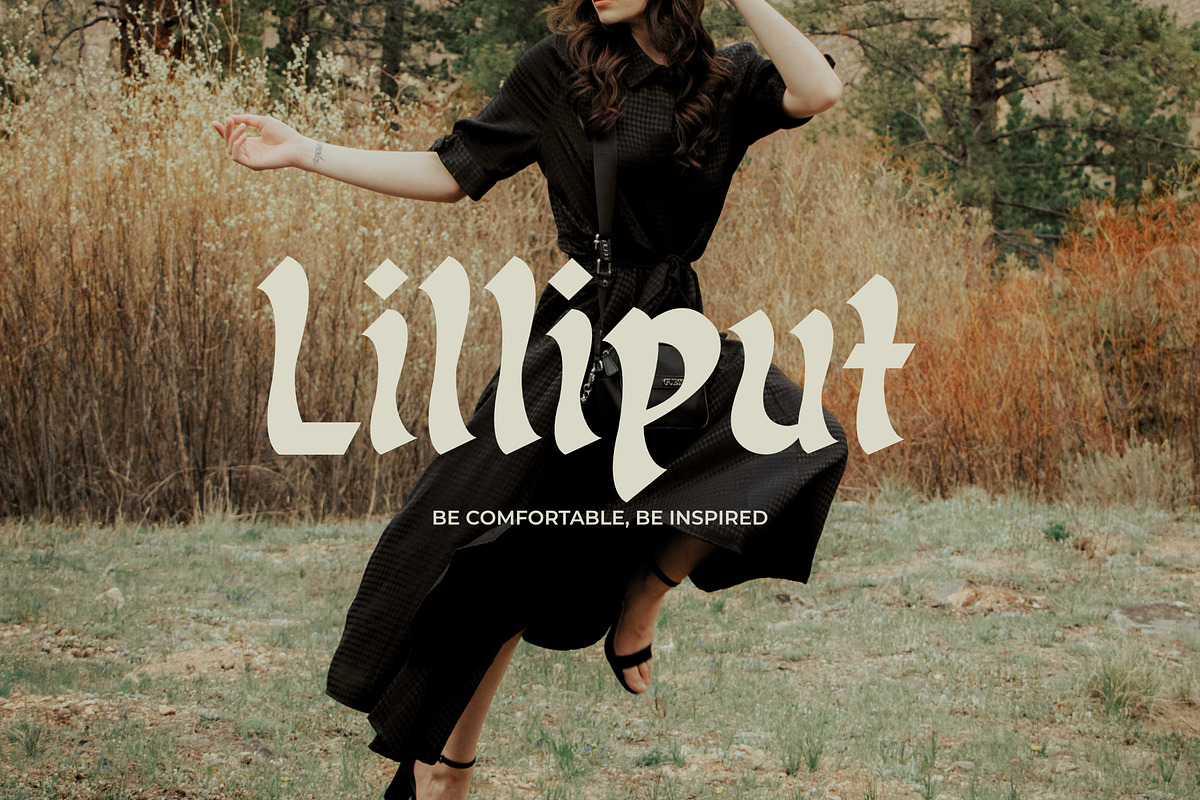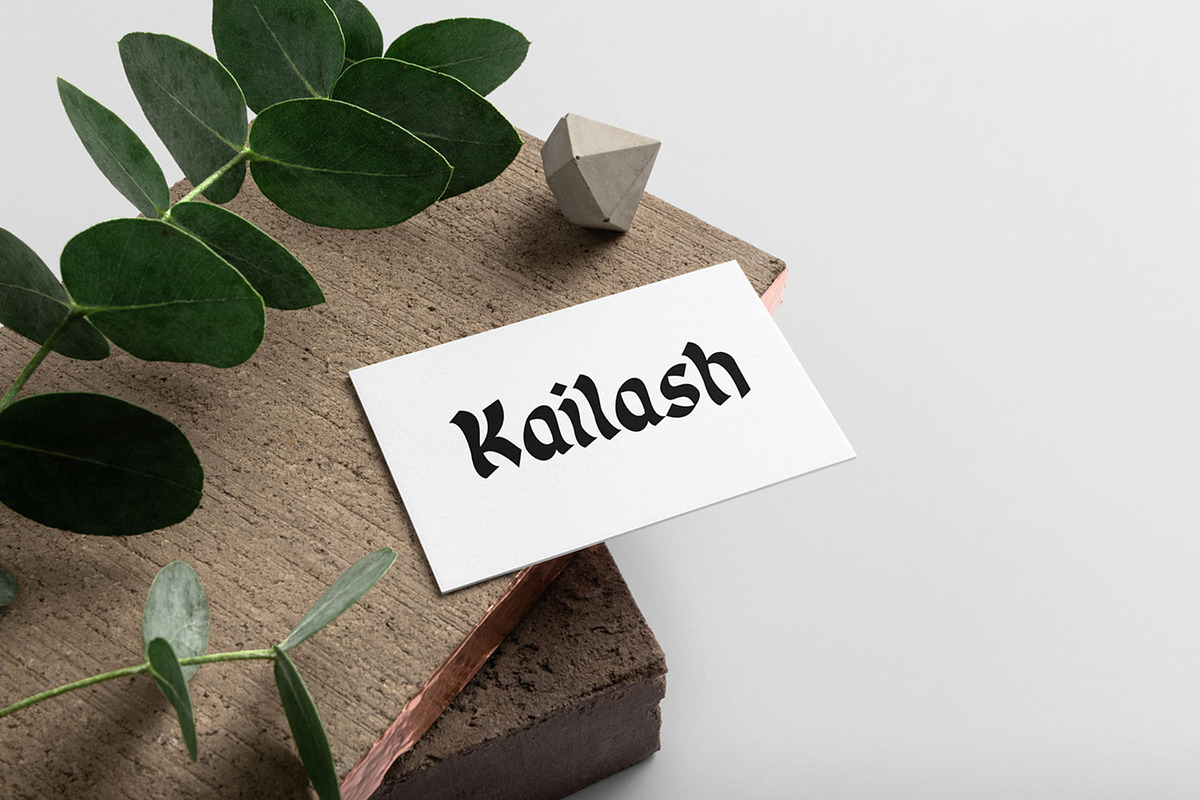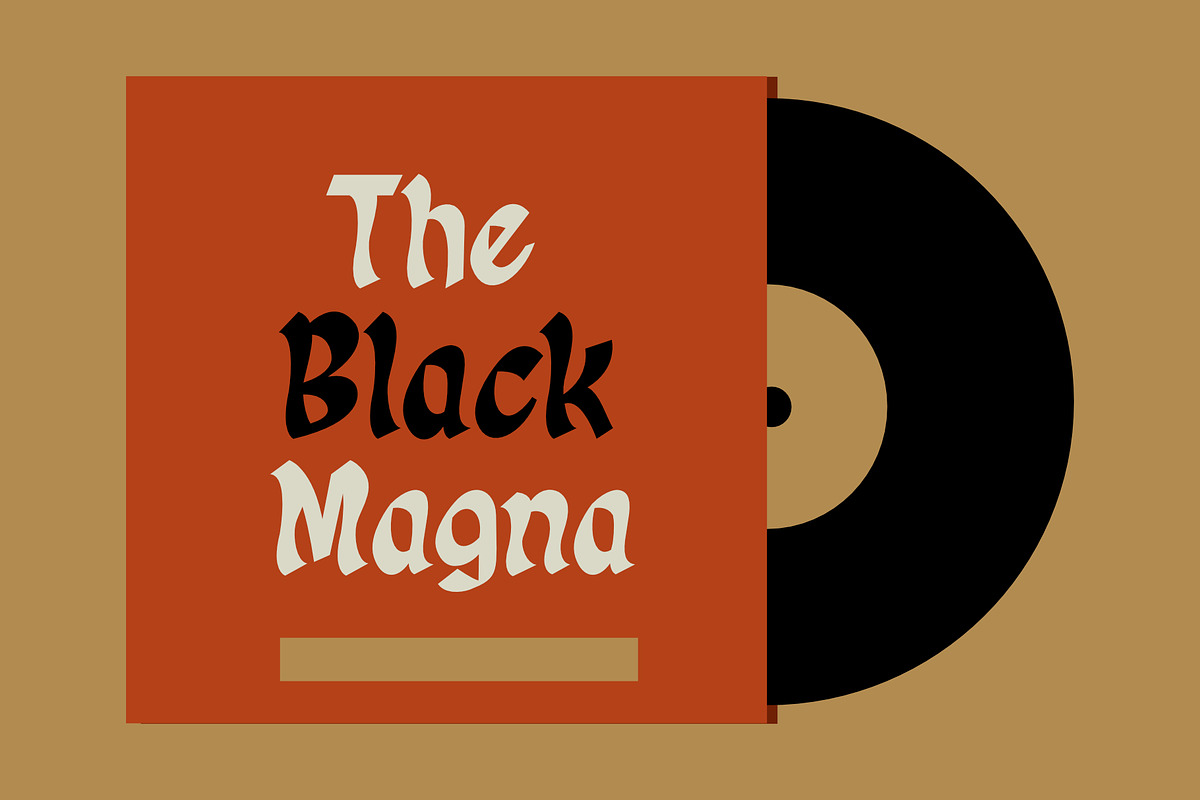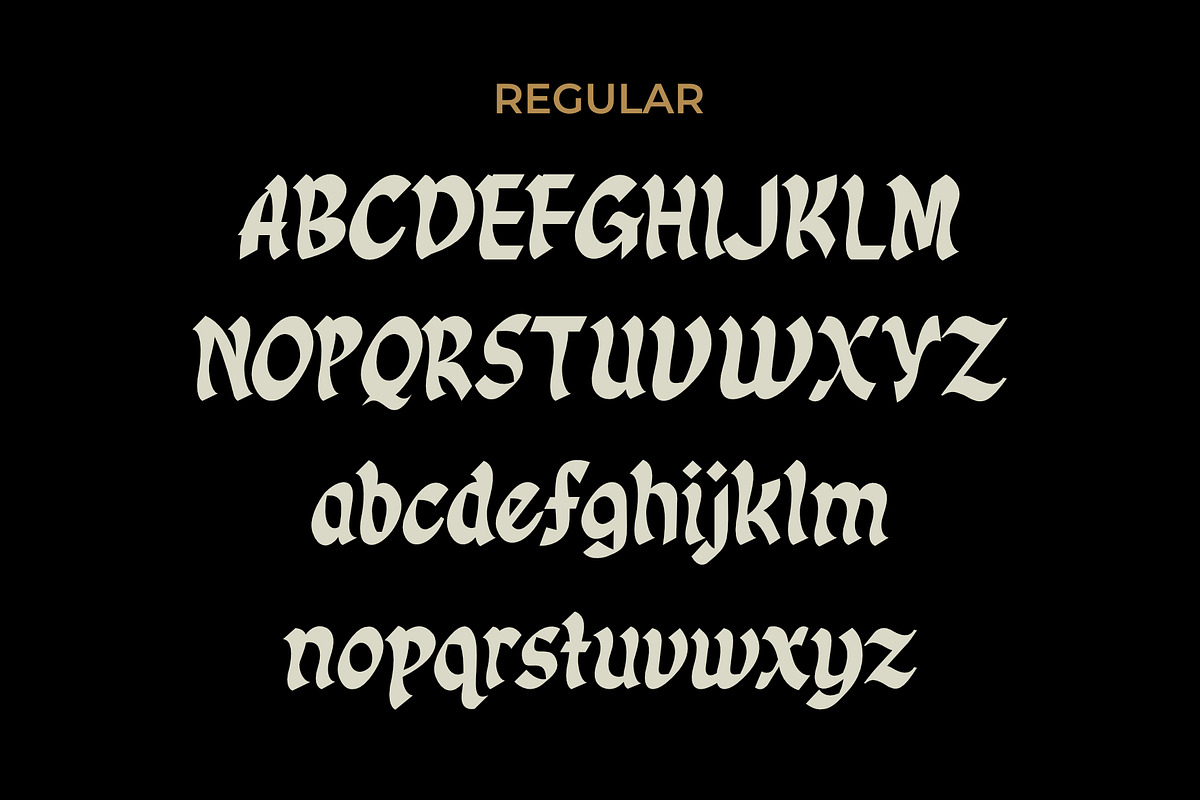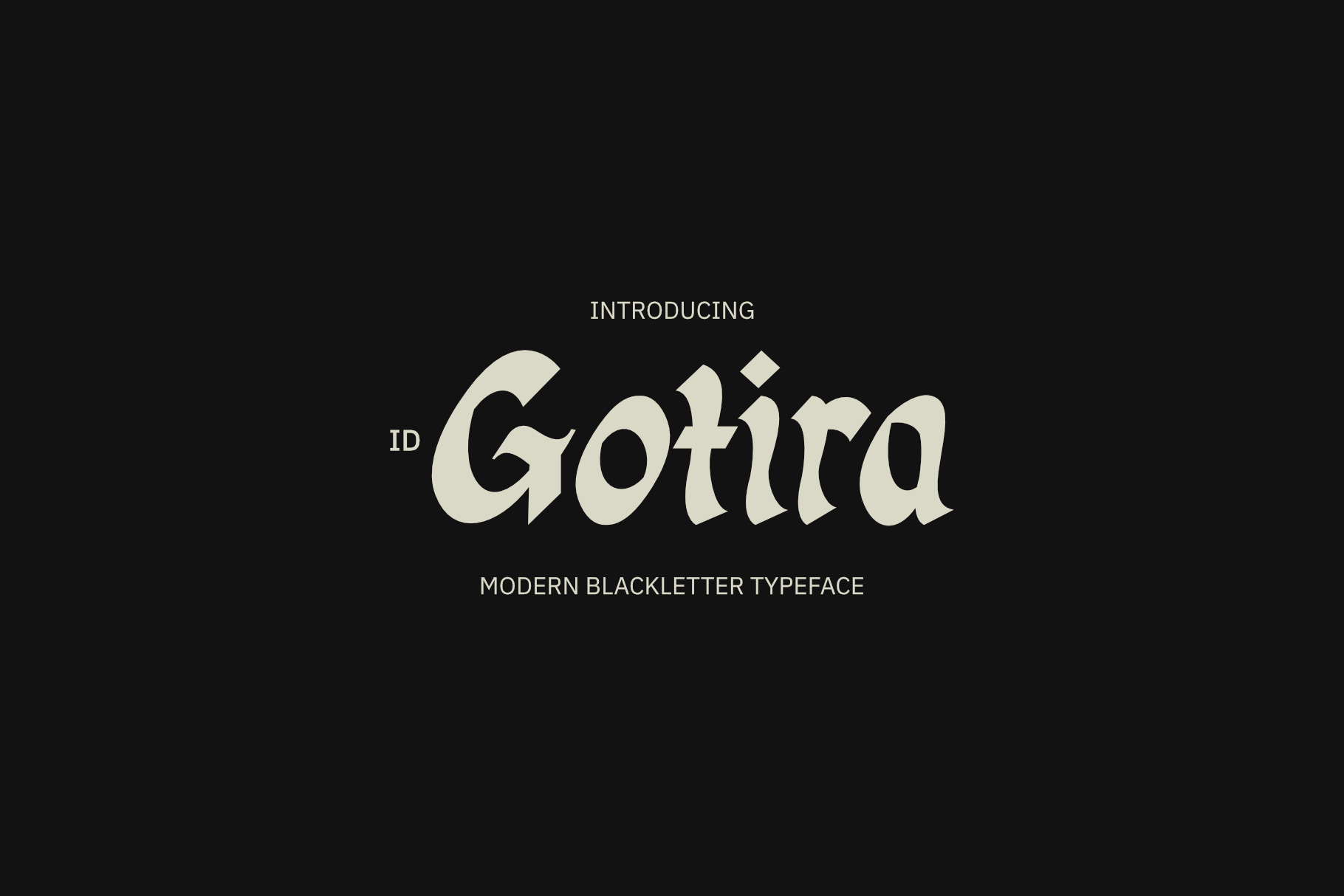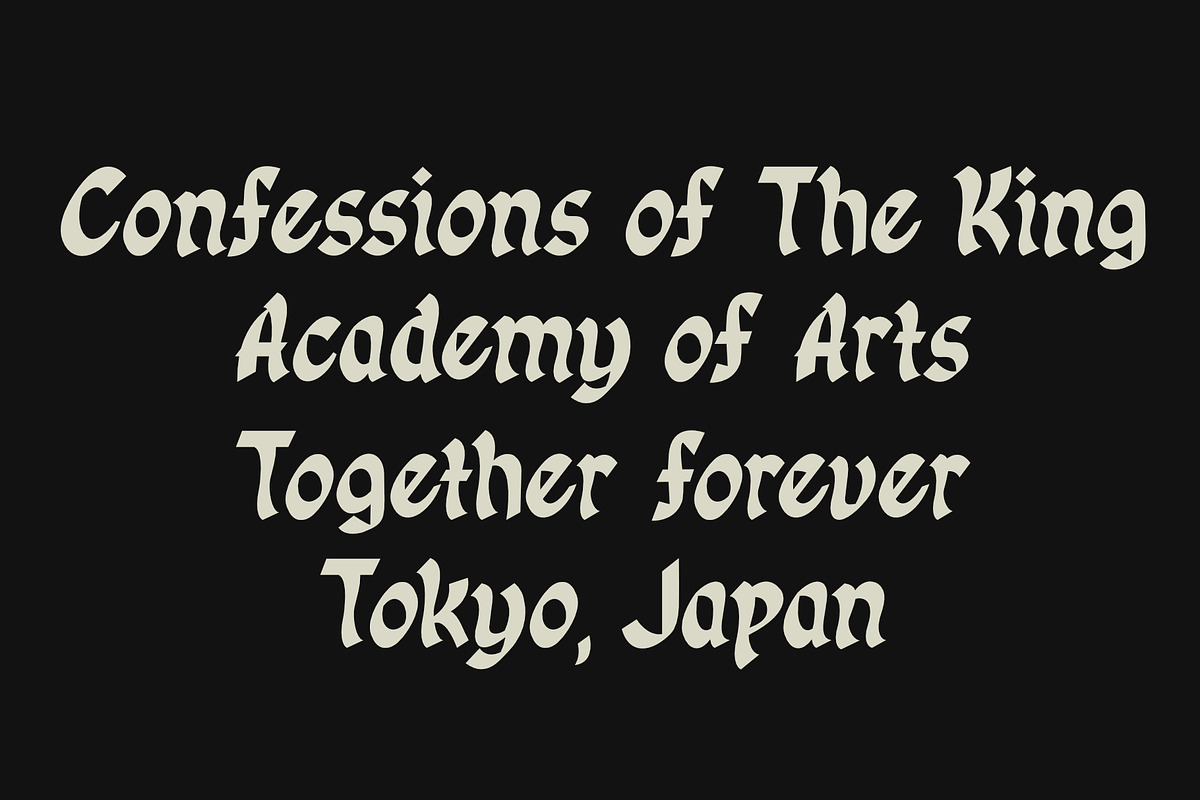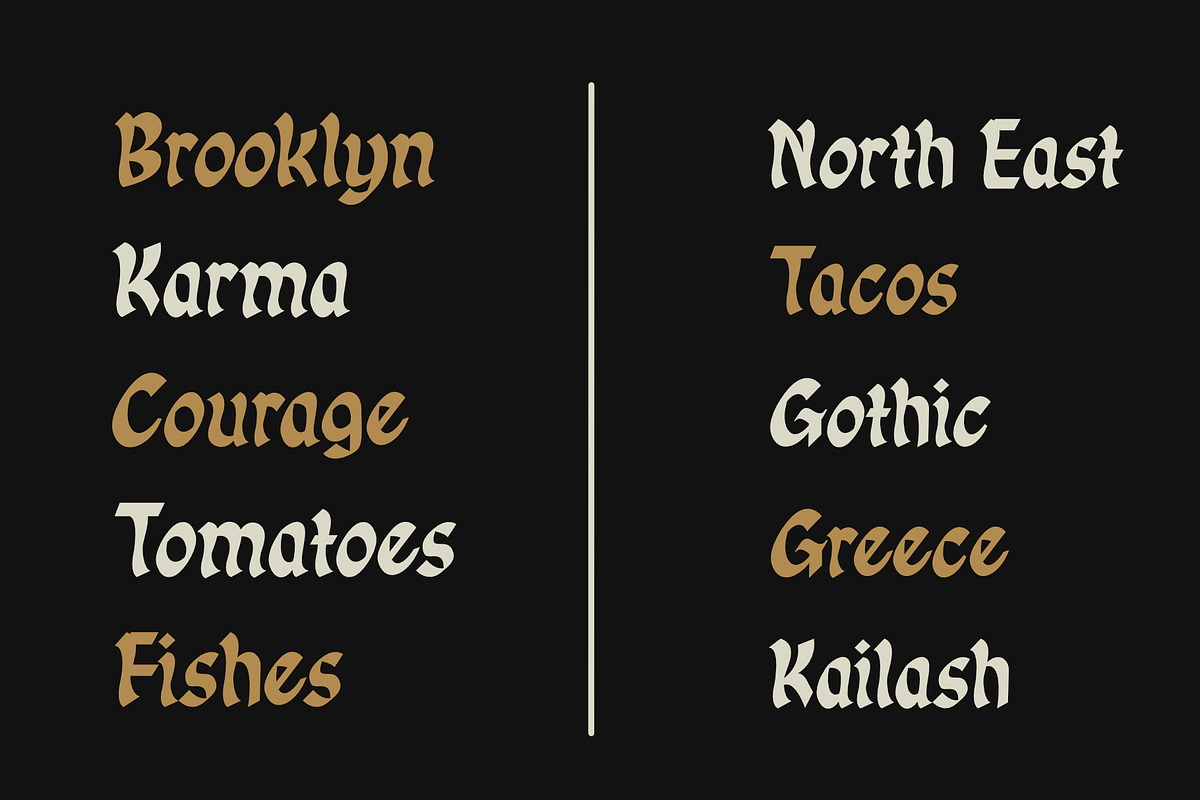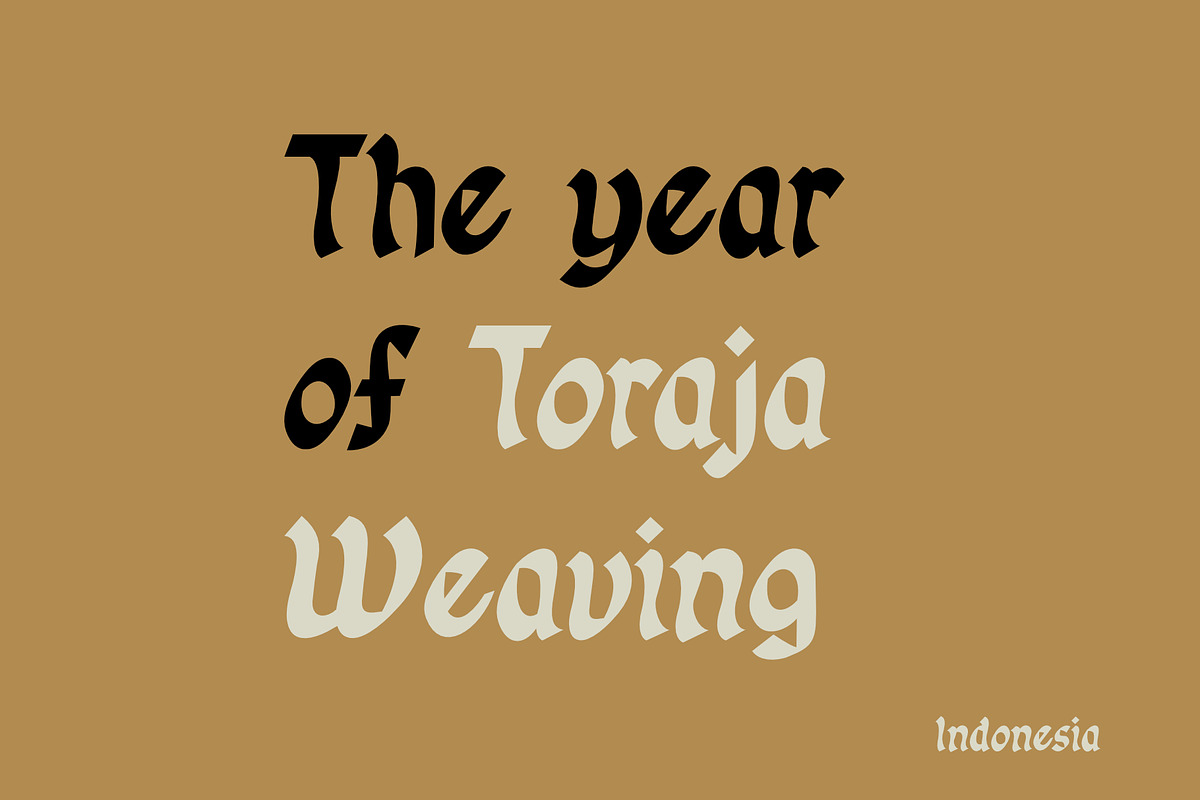
ID Gotira Typeface
ID Gotira Blackletter is a contemporary reimagining of traditional Blackletter (Old English) typography. It retains the classic elegance and boldness of the historical style while adding versatility for modern applications. This font features multi-language support, making it suitable for a wide range of uses, including headlines, body text, branding, packaging, and posters. Its calligraphic nature gives it a distinct personality that can evoke feelings of history, tradition, and sophistication.